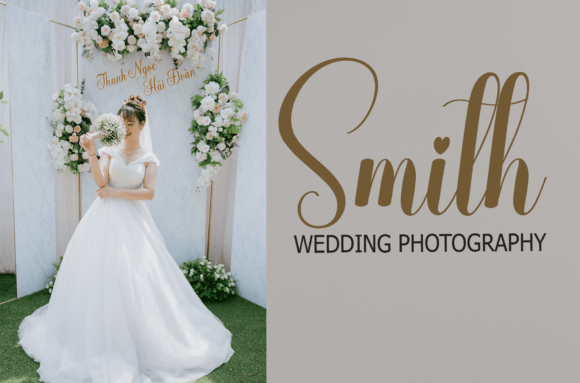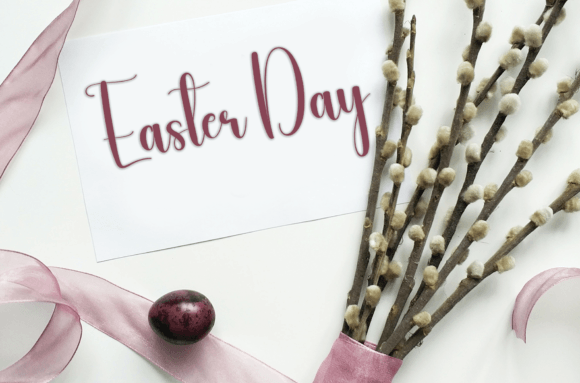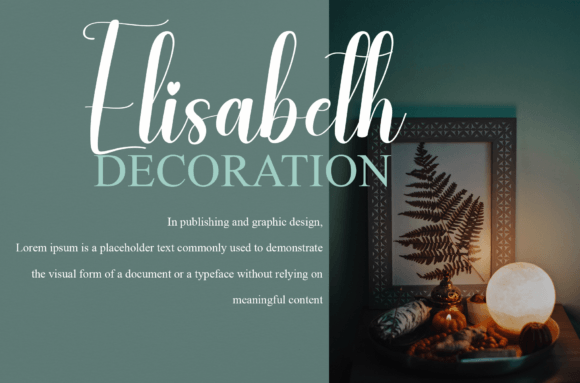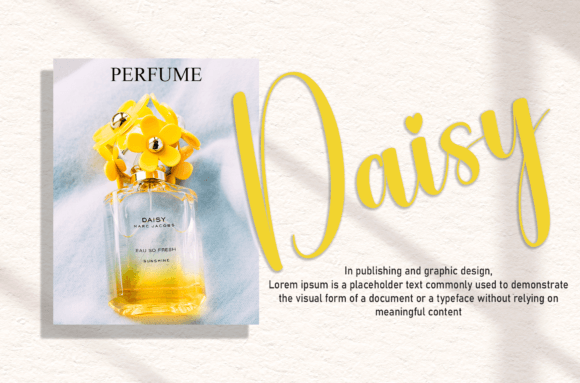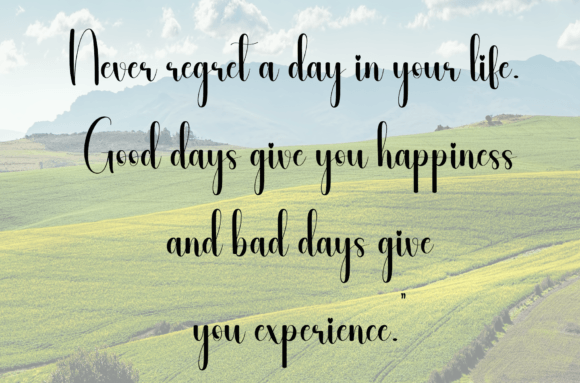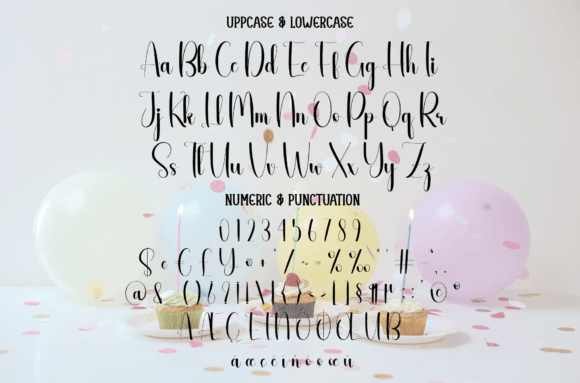
Adding a Sweet Touch to Your Designs
Have you ever found yourself brainstorming ideas for a wedding invitation or birthday card, only to be struck by the perfect font – the one that makes your design go from ordinary to extraordinary? For many designers, that perfect font is often a handwritten script that adds a touch of whimsy and personality to their work.
Enter the Cupcake Font, a sweet and friendly handwritten font that’s perfect for adding a fun touch to any design. With its fresh and neat style, Cupcake Font is ideal for writing wedding invitations, cards, or any other design that needs a little extra something special. As a designer, having a versatile font like Cupcake Font in your toolkit is invaluable, allowing you to add a personal touch to your projects and make them truly stand out.
Cupcake Font Key Features
- Font Family: A unique, playful script font designed for digital use.
- Character Set: The font includes a wide range of characters, including uppercase and lowercase letters, numbers, punctuation, and special symbols.
- Unique Characteristics: Cupcake Font features a whimsical, hand-drawn design with subtle irregularities and imperfections, giving it a charming, human touch.
Cupcake Font Review
I’ve had the chance to work with Cupcake Font, and I must say it’s a unique addition to any design project. Here’s my honest take on it.
- Cupcake Font has a playful, whimsical feel to it that’s perfect for food-related projects or anything that needs a touch of sweetness.
- The font is highly customizable, allowing for a wide range of color and size adjustments.
- Cupcake Font is not ideal for professional or formal projects, as its playful nature may not be taken seriously.
- The font is not as legible at smaller sizes, which can make it difficult to read in certain contexts.
- The font’s uniqueness can also make it prone to visual fatigue, so use it sparingly to avoid overwhelming the viewer.
Overall, Cupcake Font is a fun and versatile font that’s perfect for projects where you want to add a touch of personality. Just be mindful of its limitations and use it in contexts where its playful nature will shine.
Tips for Getting the Most Out of the Cupcake Font
Use the Cupcake Font to add a touch of whimsy and playfulness to your designs. It pairs well with bold colors and fun graphics. Experiment with different font sizes and styles to create a unique and eye-catching look.
The Cupcake Font is ideal for:
- Bakery and food-related designs
- Whimsical and playful branding
- Creative and artistic projects